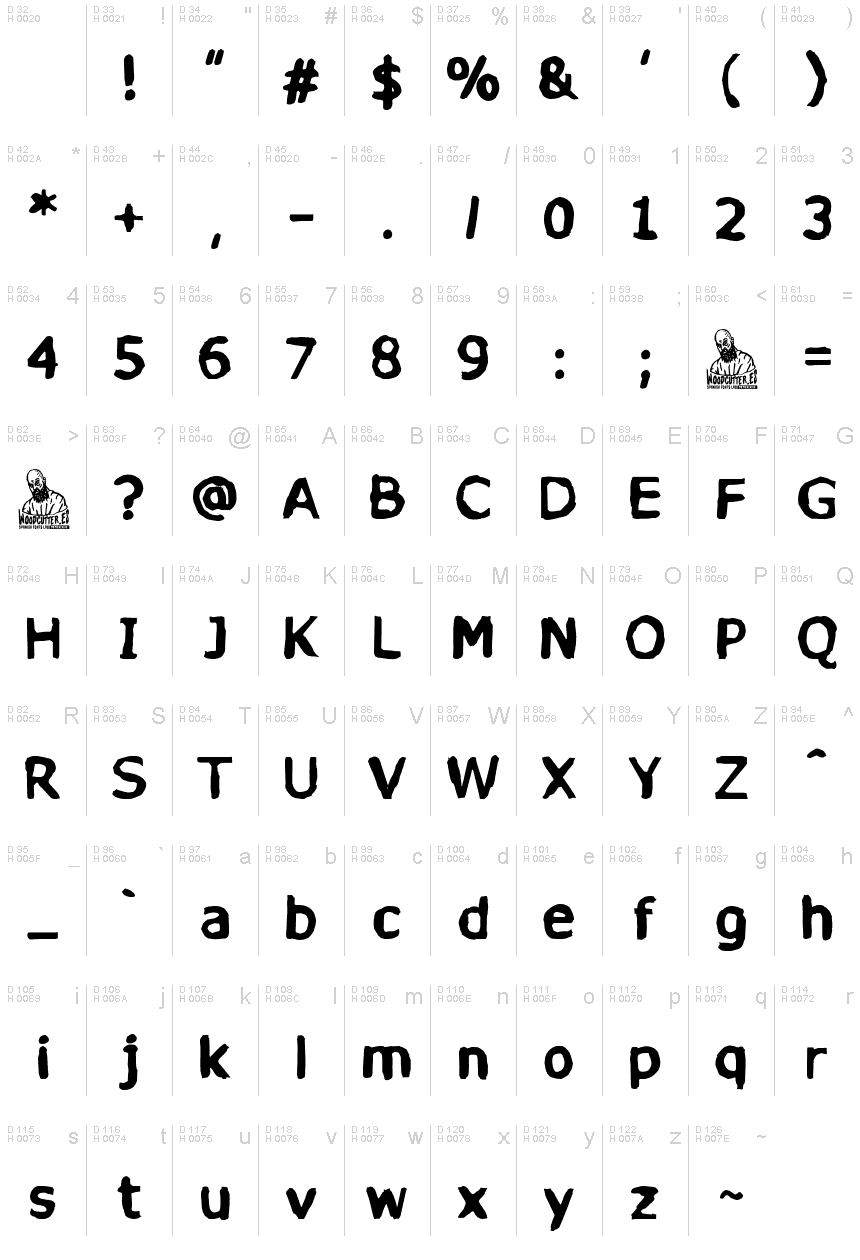
José Luis López Vázquez
Meet the José Luis López Vázquez font, a bold and edgy display typeface brought to you by Woodcutter Manero. Its unique eroded style exudes a rugged charm that's perfect for projects that require an unconventional touch. From vintage posters to grunge-inspired album covers, this font is versatile enough to suit a wide range of design needs. Its bold weight makes it particularly suited for headlines and titles, ensuring your message is front and center. So unleash your creativity and add a touch of rebellion with the José Luis López Vázquez font!